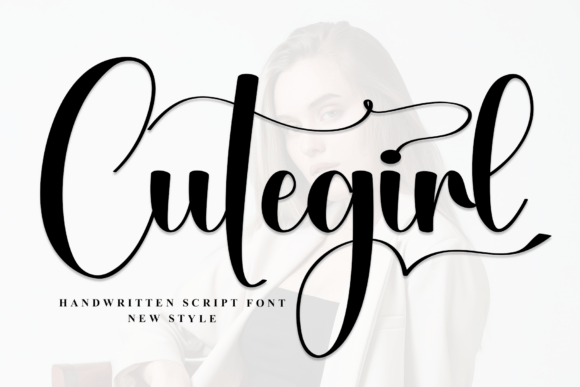
Introducing Cutegirl Font: The Ultimate Choice for Stunning Designs
In the world of typography, fonts play a crucial role in making or breaking a design. A perfect font can elevate your brand’s visual identity, making it more recognizable and memorable. If you’re on the hunt for a font that exudes charm, elegance, and a touch of playfulness, look no further than Cutegirl Font. This lovely and timeless handwritten font is specifically designed to help you create eye-catching logos, branding materials, and quotes that leave a lasting impression.
What Makes Cutegirl Font So Special?
- Unique and Beautiful Touch: Every letter in the Cutegirl Font has a distinct and beautiful touch, which sets it apart from other fonts. The unique characteristics of each letter make your design come alive, adding a personal touch that resonates with your audience.
- Handwritten with Love: Cutegirl Font is a handwritten font, carefully crafted to convey a sense of warmth and approachability. Its organic feel makes it perfect for designs that require a personal and emotive touch.
- Timeless Appeal: Unlike trendy fonts that may quickly go out of style, Cutegirl Font boasts a timeless appeal that ensures your designs remain relevant for years to come. Its classic charm makes it an excellent choice for brands looking to establish a long-term visual identity.
- Versatile and Adaptable: Cutegirl Font is incredibly versatile and can be used across various design applications, from logos and branding materials to quotes and social media graphics.
Ideal Design Applications for Cutegirl Font
Cutegirl Font’s versatility makes it suitable for a wide range of design applications. Here are some of the ideal use cases for this stunning font:
- Logo Design: Create a memorable logo that stands out from the crowd with Cutegirl Font. Its unique and beautiful touch ensures your logo will be instantly recognizable.
- Branding Materials: Establish a consistent visual identity across your branding materials, including business cards, brochures, and letterheads, using Cutegirl Font.
- Quotes and Social Media Graphics: Add a touch of elegance and sophistication to your quotes and social media graphics with Cutegirl Font. Its readability and charm make it perfect for conveying inspiring messages.
Typography Tips for Working with Cutegirl Font
To get the most out of Cutegirl Font, here are some typography tips to keep in mind:
- Pair it with Neutral Fonts: Combine Cutegirl Font with neutral fonts to create a harmonious contrast that enhances the overall visual appeal of your design.
- Experiment with Font Sizes: Play with different font sizes to create visual hierarchy and emphasize key messages in your design.
- Pay Attention to Kerning: Adjust the kerning to ensure optimal spacing between letters, which is essential for maintaining the font’s unique and beautiful touch.
Get Inspired with Cutegirl Font
Still unsure about using Cutegirl Font for your next design project? Here are some inspiring examples that showcase the font’s capabilities:
- Wedding Stationery: Use Cutegirl Font to create stunning wedding stationery, including invitations, save-the-date cards, and thank-you notes.
- Fashion Branding: Elevate your fashion brand with Cutegirl Font, perfect for creating stylish logos, business cards, and packaging designs.
- Quote Posters: Design inspiring quote posters using Cutegirl Font, ideal for social media, blogs, or office decor.
In conclusion, Cutegirl Font is an exceptional choice for designers seeking a lovely and timeless handwritten font. Its unique and beautiful touch, versatility, and adaptability make it perfect for creating eye-catching logos, branding materials, and quotes. By incorporating Cutegirl Font into your design projects, you’ll add a touch of elegance, sophistication, and playfulness that will leave a lasting impression on your audience.